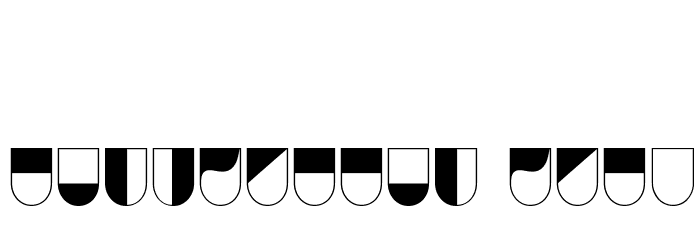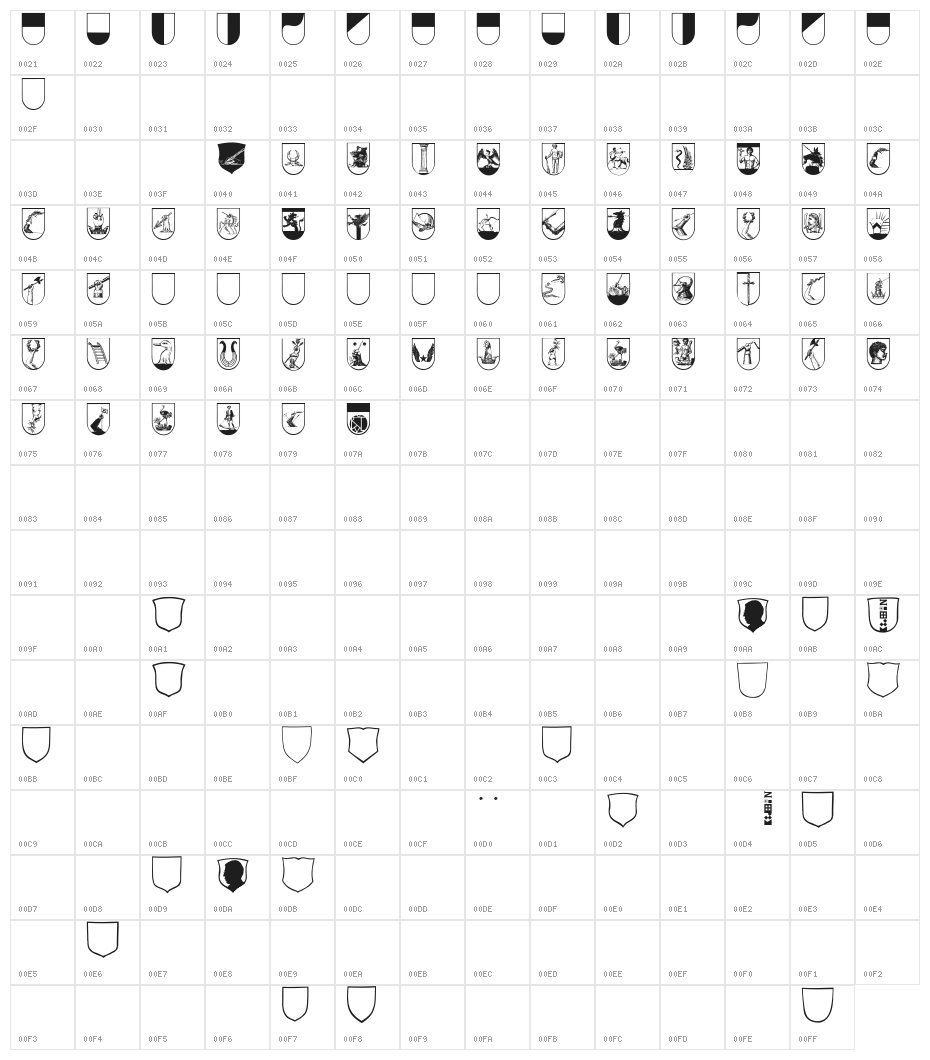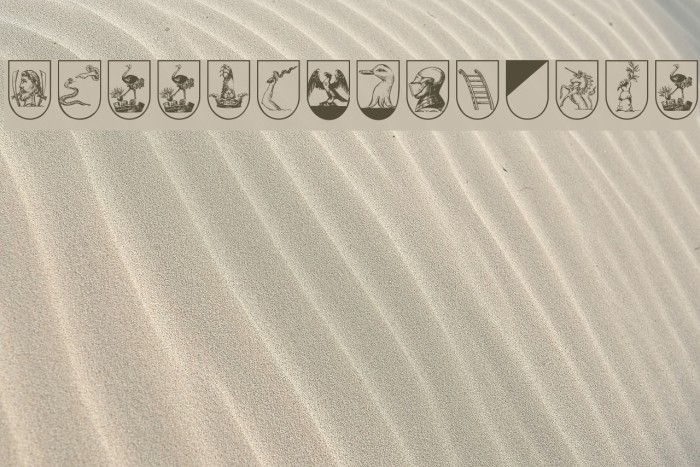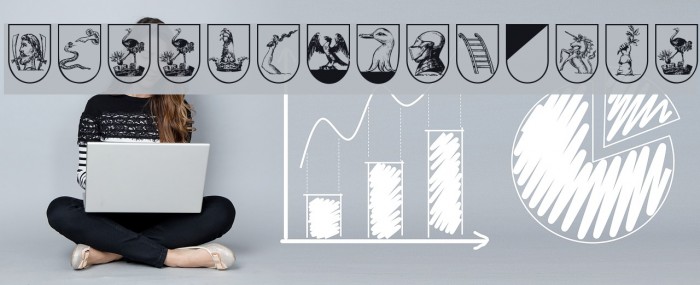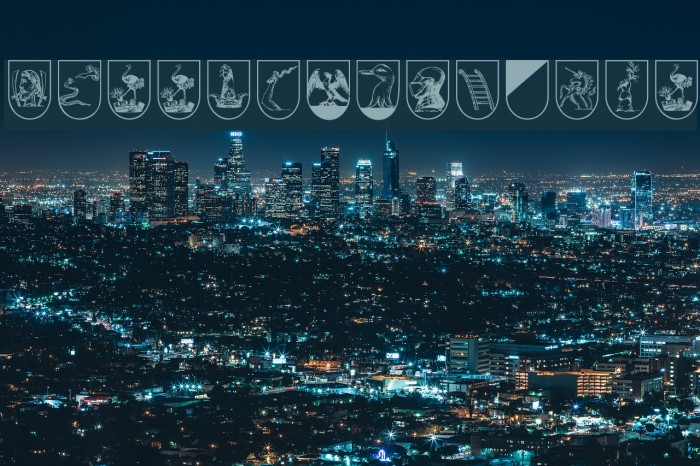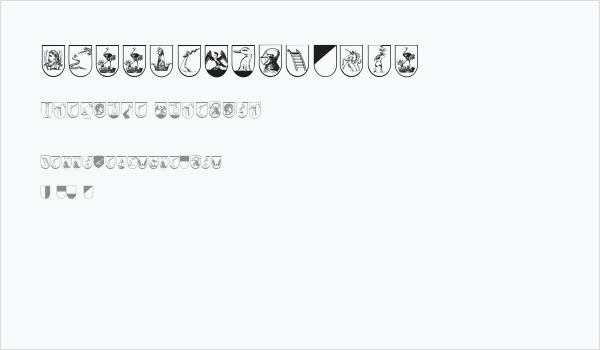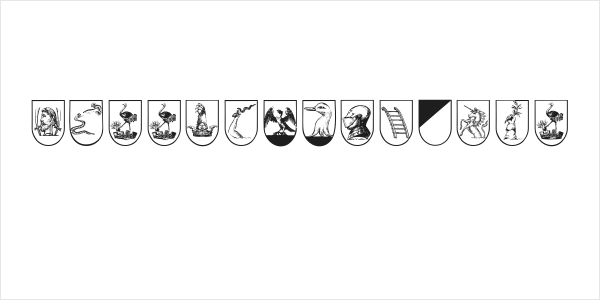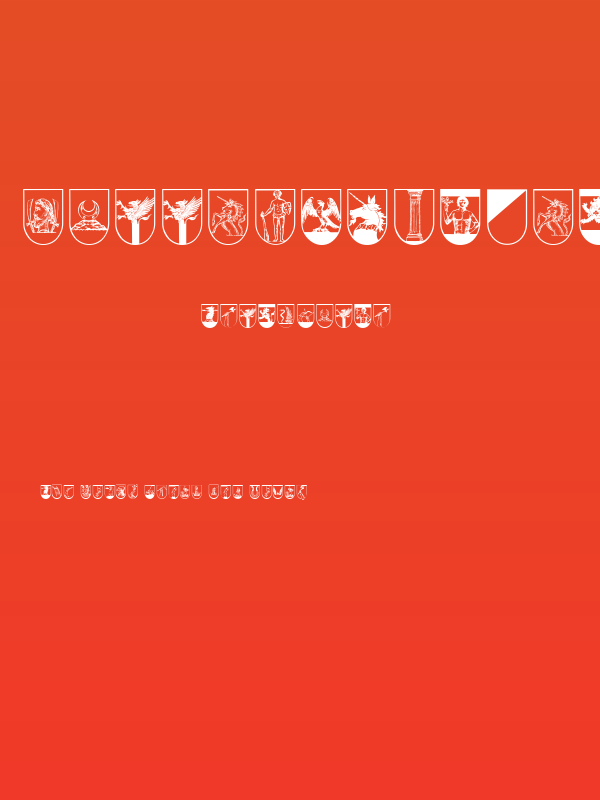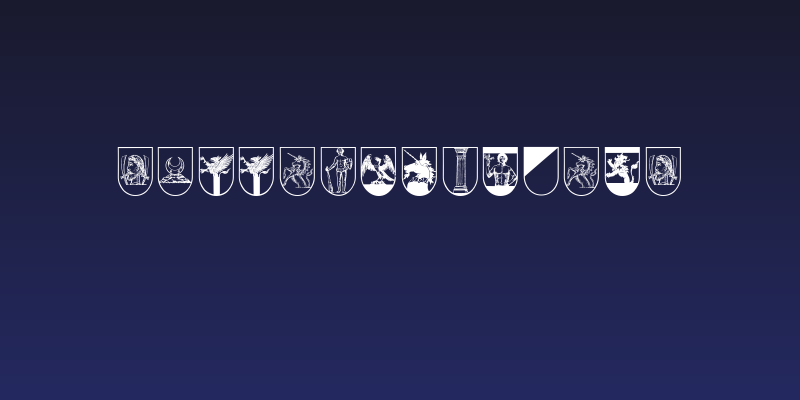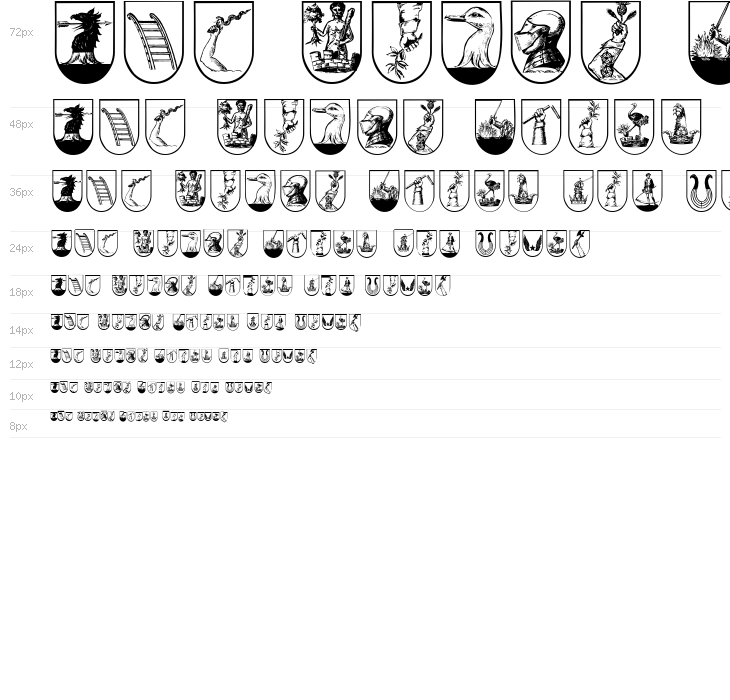
WappneDich-Now Font
WappneDich-Now Description
A highly decorative and illustrative typeface where each character is represented by a unique heraldic shield containing detailed line art illustrations or geometric patterns. The style is reminiscent of medieval or renaissance heraldry, with each glyph acting as a miniature coat of arms. The numerals and symbols are represented by abstract shield divisions in black and white.
| Overall Style | Decorative, Vintage, Heraldic |
| Use Case | Logos, Headlines, Decorative initials, Themed event materials |
| Proposed Projects | Book covers, fantasy games, historical posters, branding for themed events, decorative initials. |